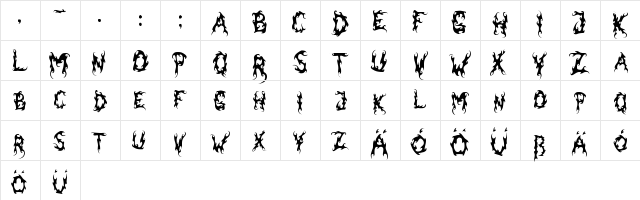
Dark Garden Regular
Design Context for Dark Garden Typeface
Dark Garden is a composed and adaptable typeface that performs quietly and consistently across a wide range of design contexts.